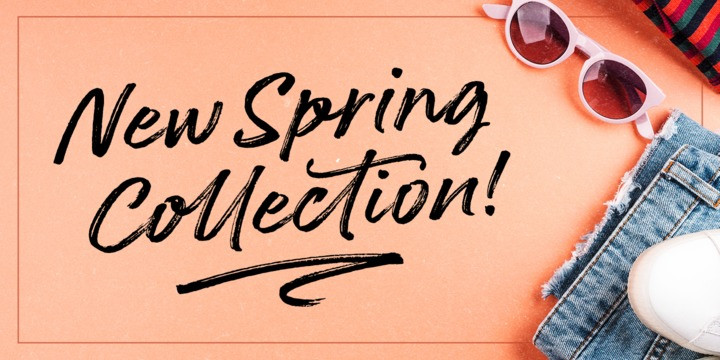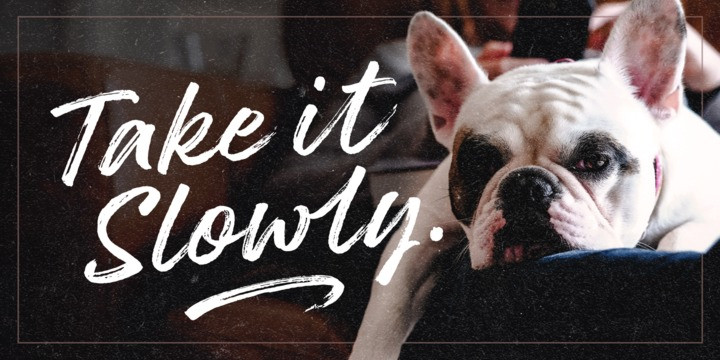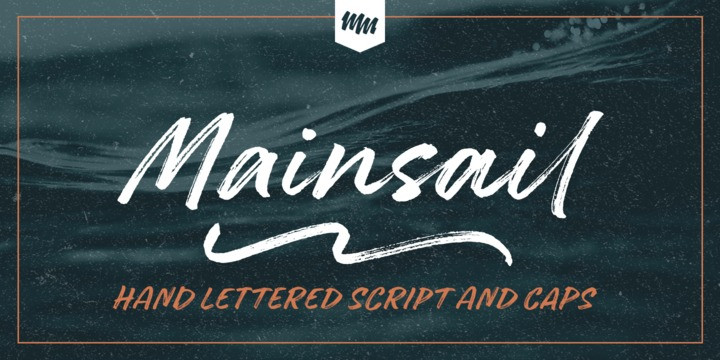
Mainsail Font
Mainsail is a handwritten brush script font. It is casually written with dry brush pen, so it has this nice texture and flow. Mainsail has lots of alternates to make it look more like real handwriting; four sets of lower cases and two sets of upper cases. Mainsail is great option for logos, headlines and packaging. You can also use it in longer texts where you need this casual handwritten look. It will also combine well with sans and serif fonts.